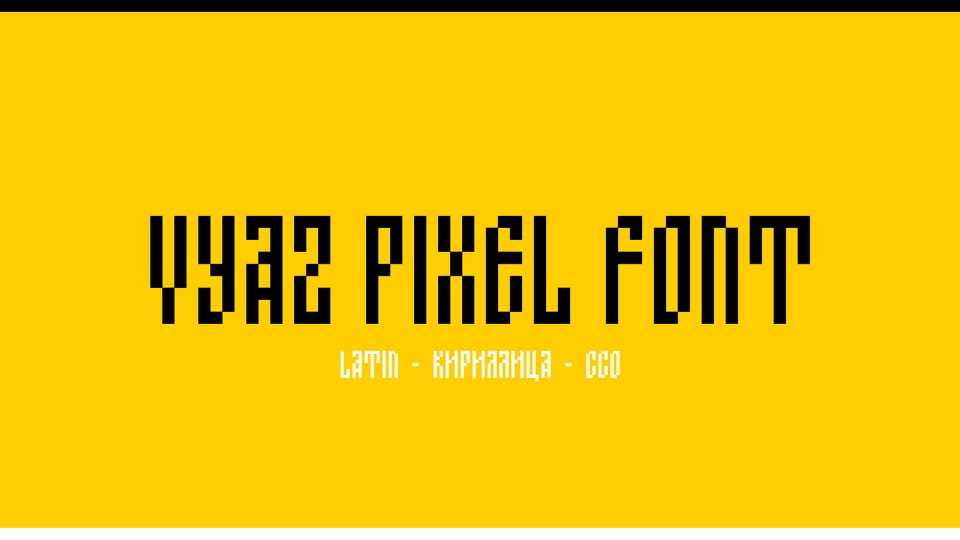
Download Vyaz Pixel font, a pixelated typeface that beautifully reinterprets the ornate elegance of old-style Vyaz lettering that evokes both digital and historical aesthetics.